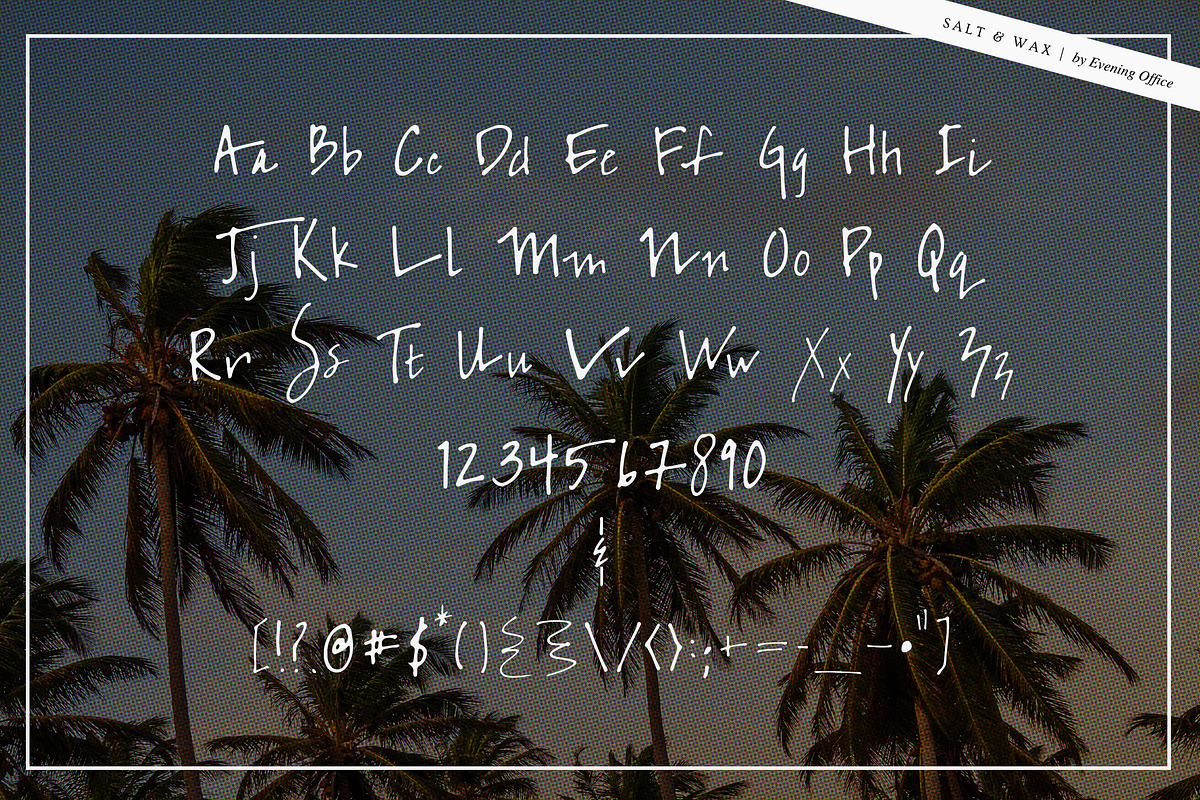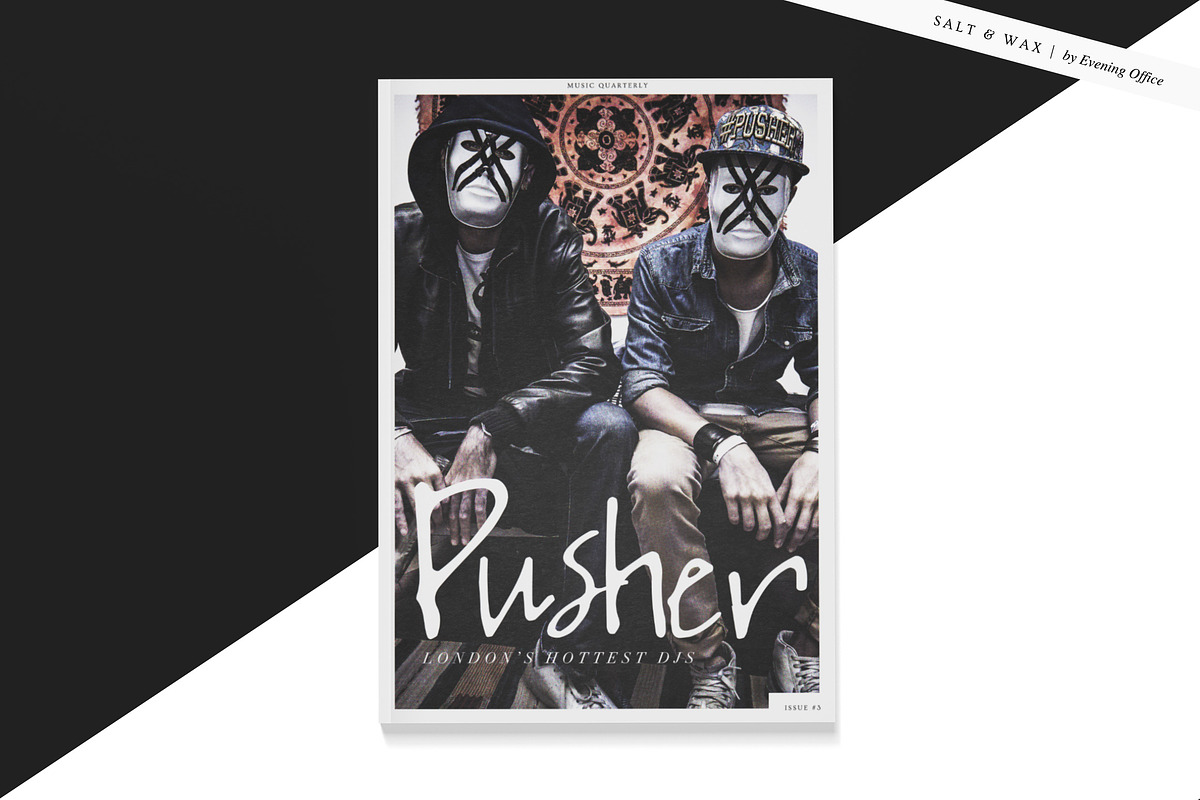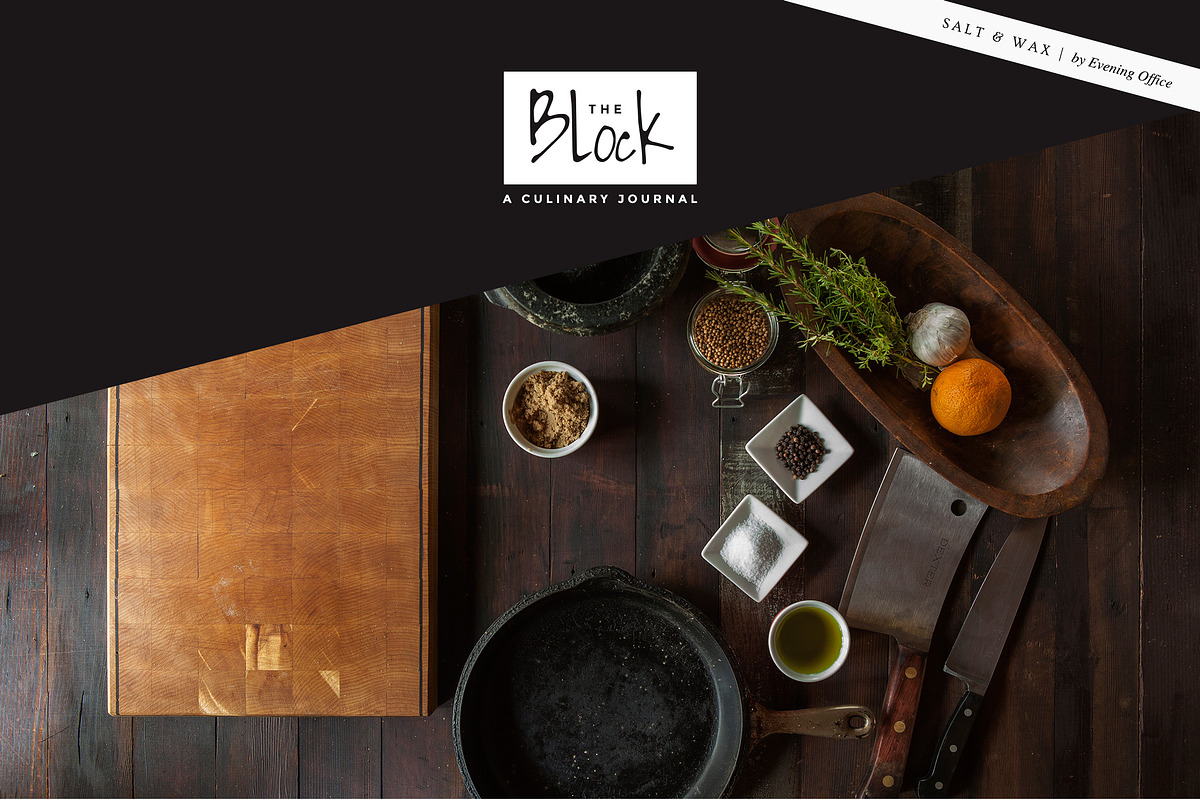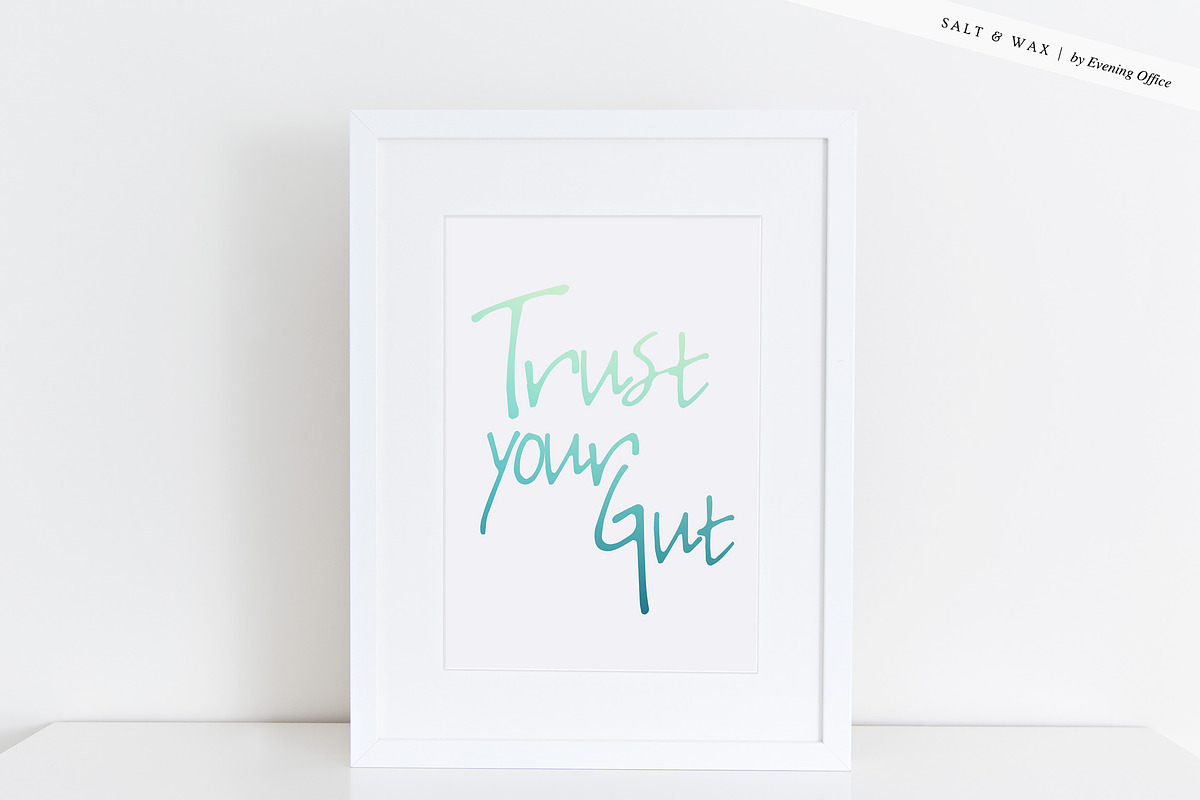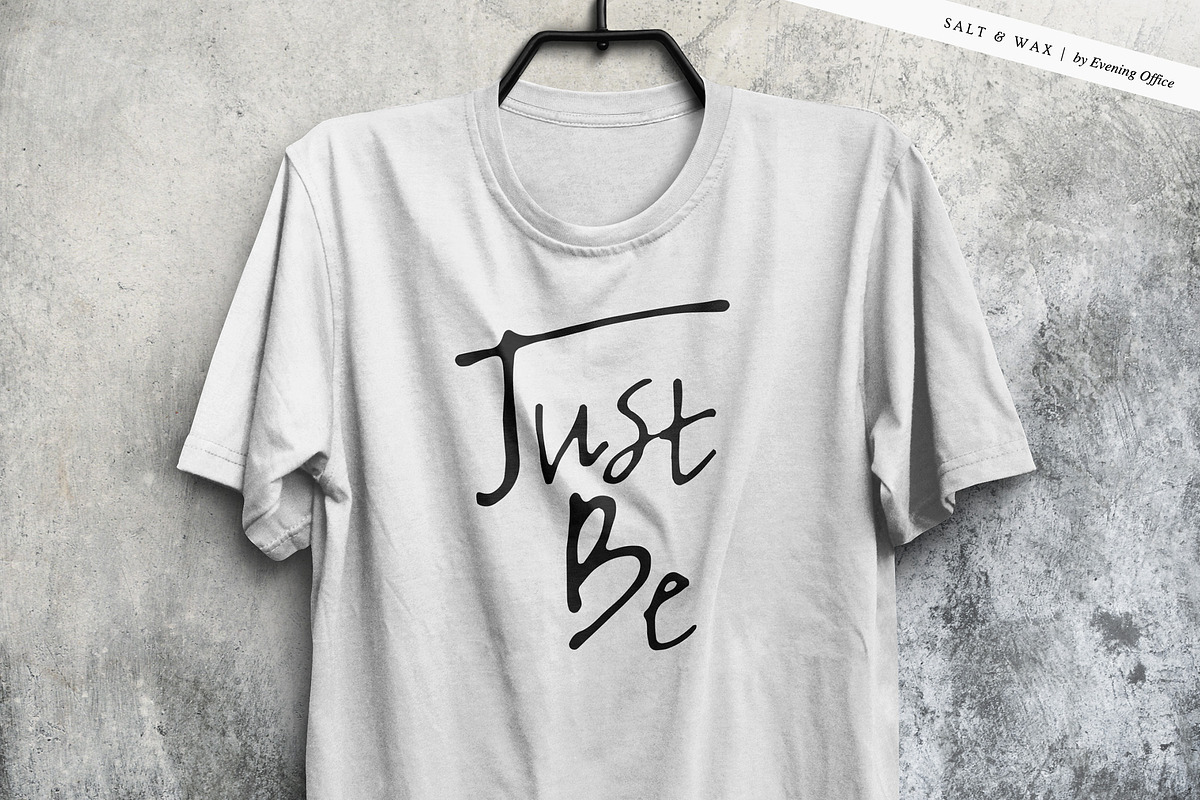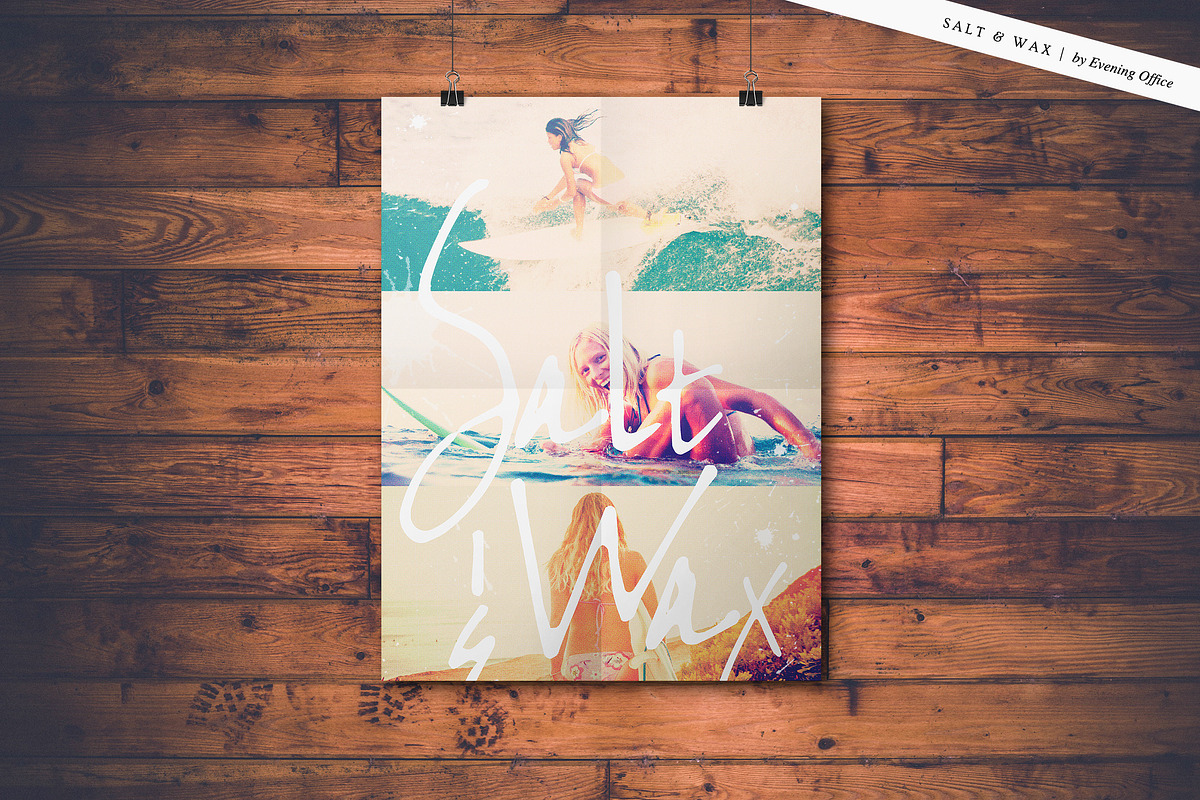
Salt & Wax | Handwritten Font
Salt & Wax | Handwritten Font by Type Cargo is a font selected for branding, posters, packaging, typography.
Why Salt & Wax | Handwritten Font is worth a look
Salt & Wax | Handwritten Font by Type Cargo fits naturally into Branding, posters, packaging, typography.